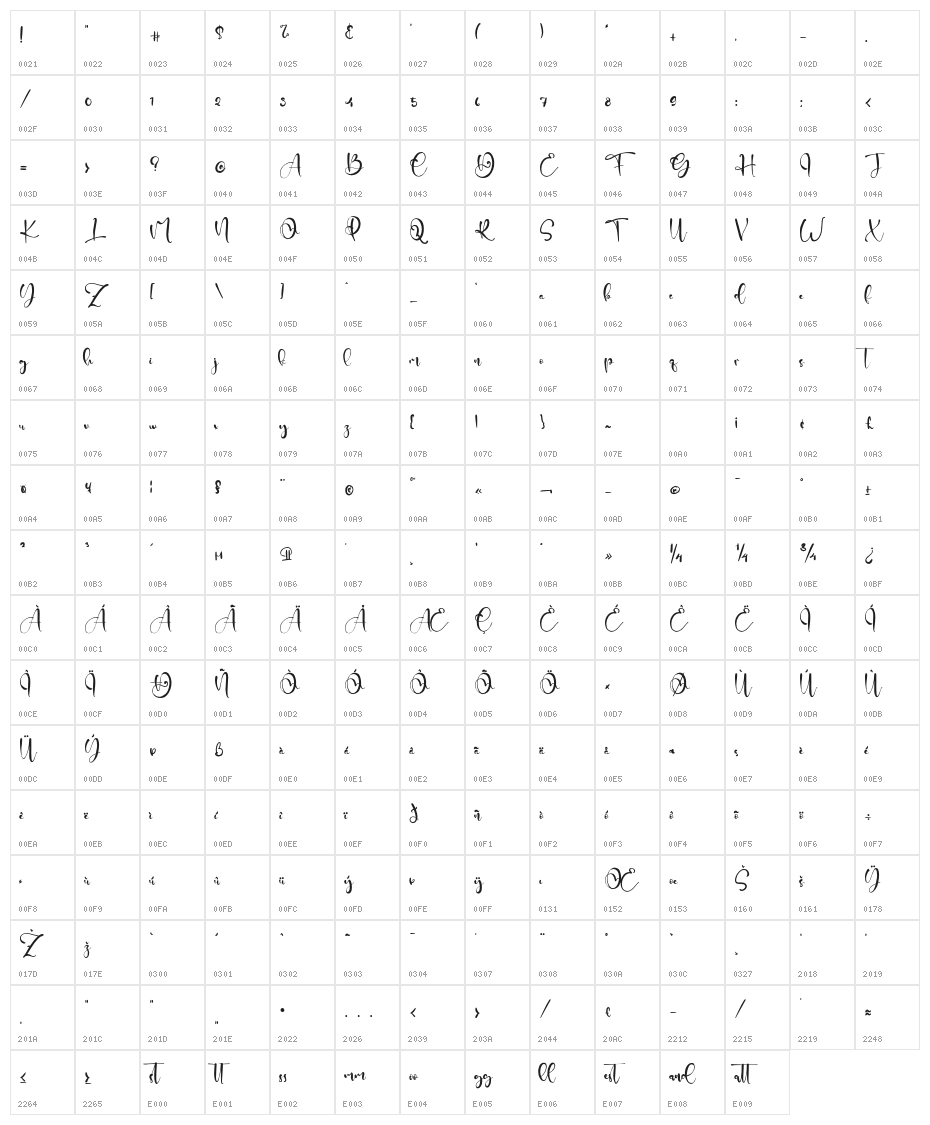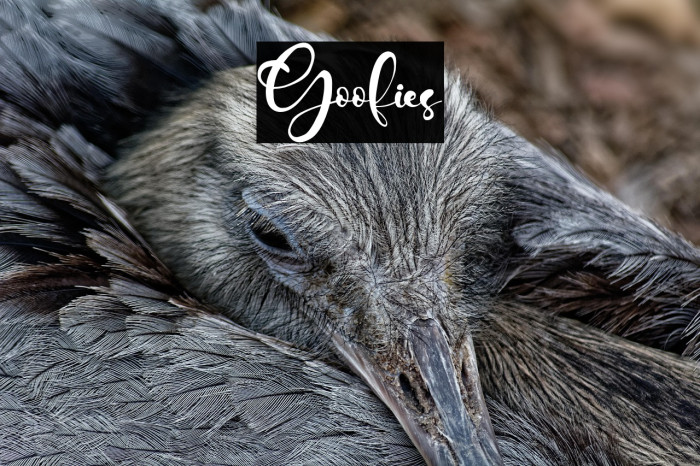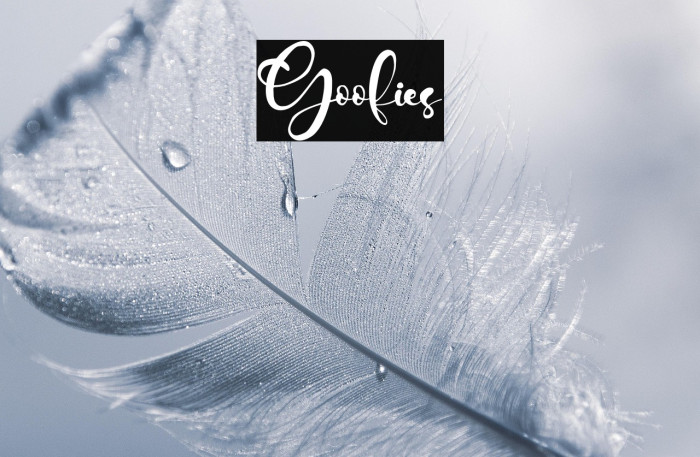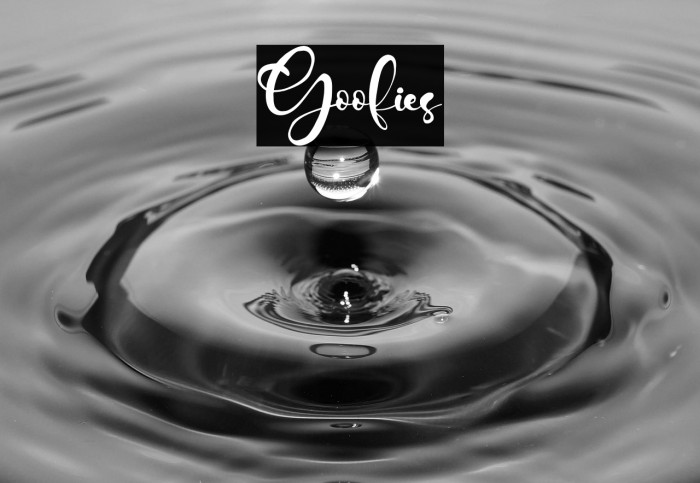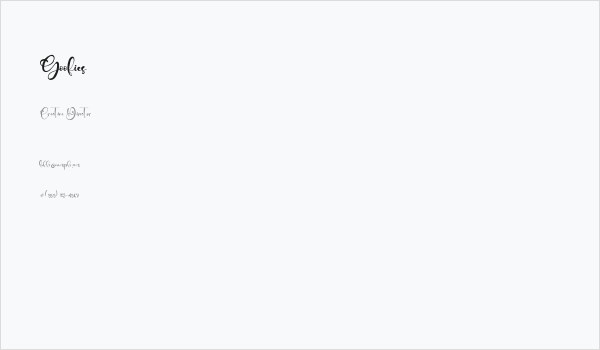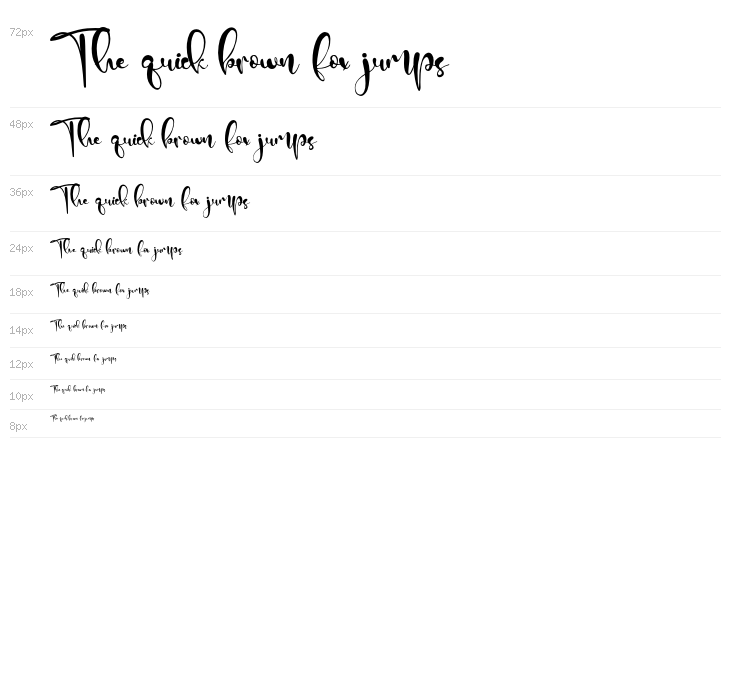
Goofies Font
Goofies Description
This font features a whimsical and playful script style, characterized by its flowing and interconnected letterforms. The uppercase letters exhibit a graceful elegance with sweeping curves and loops, while the lowercase letters maintain a consistent fluidity that enhances readability. The numerals are distinct and maintain the playful aesthetic, making them suitable for creative contexts. Special characters are thoughtfully designed to complement the overall style, adding a touch of charm. The font's artistic flair makes it ideal for projects that require a personal and inviting touch.
| Use Case | Logos, Invitations, Greeting Cards |
| Proposed Projects | Ideal for wedding invitations, greeting cards, branding, and creative projects that require a personal touch. |